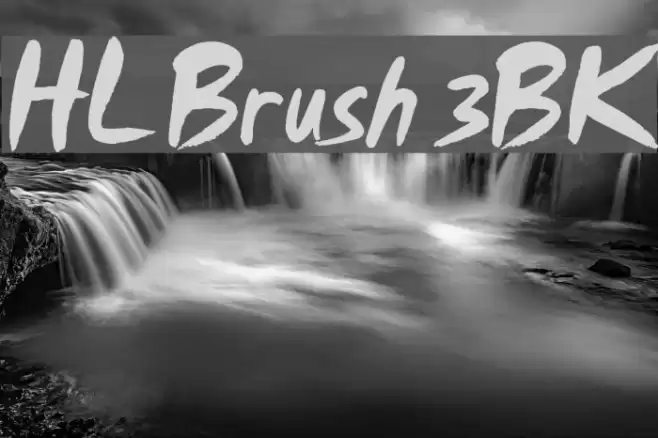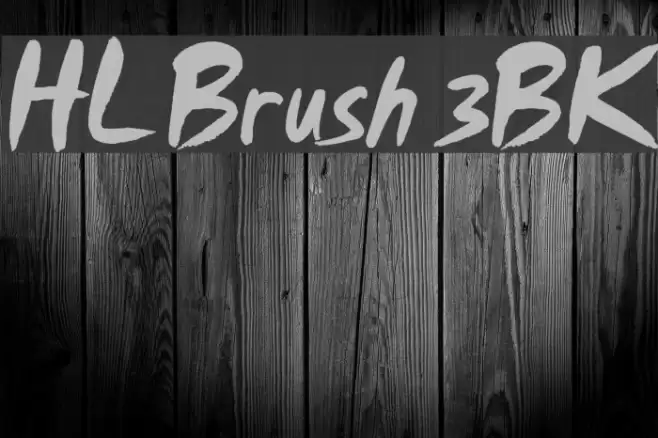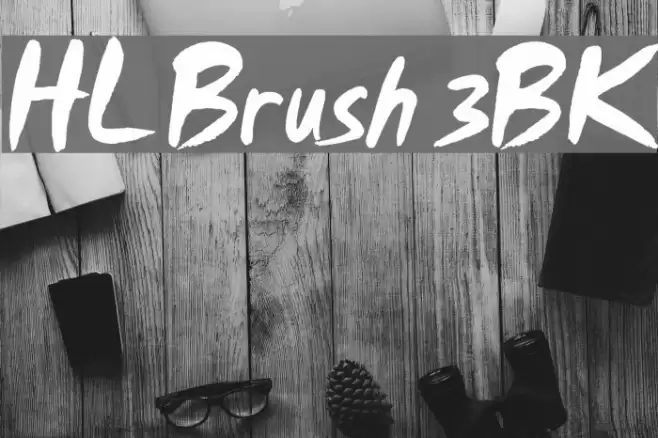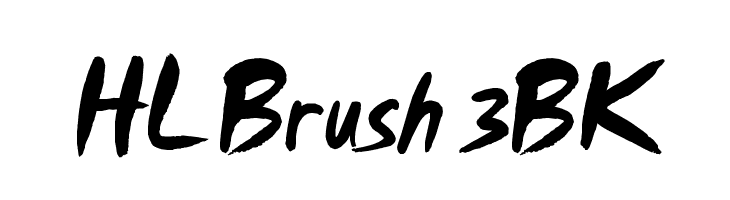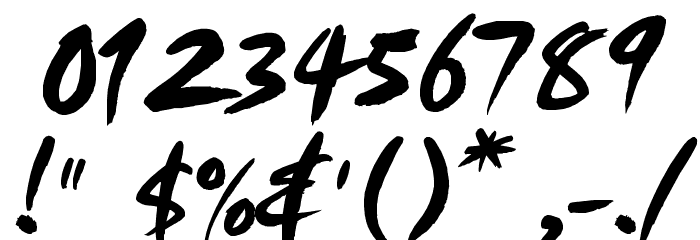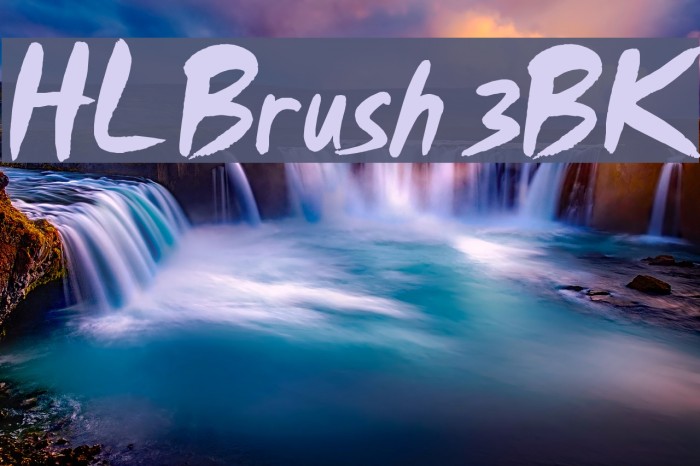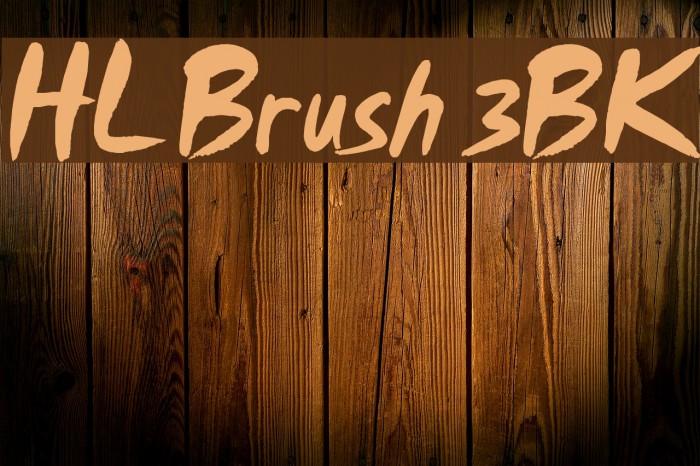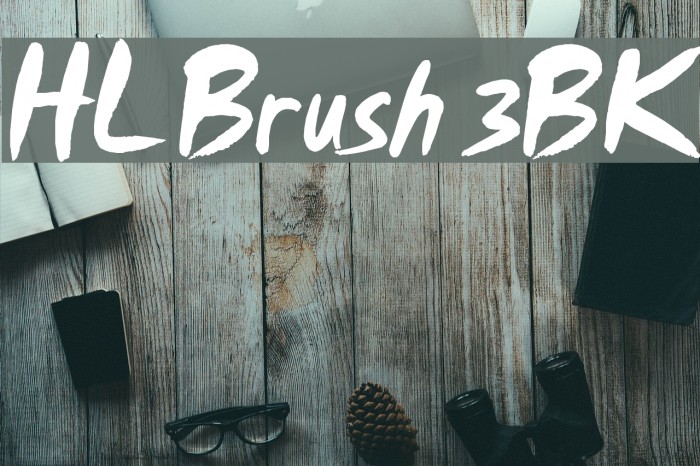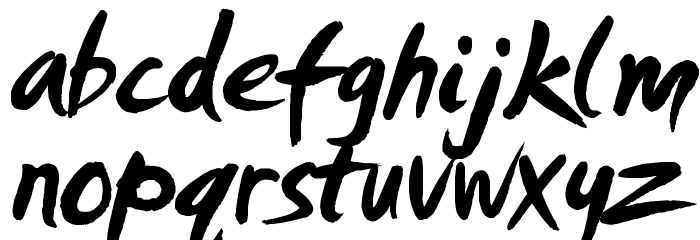
HL Brush 3BK Font
HL Brush 3BK Description
This font exhibits a dynamic and energetic brush style, characterized by bold, sweeping strokes that convey a sense of movement and fluidity. The uppercase and lowercase letters maintain a consistent style, with slightly irregular edges that enhance the hand-drawn appearance. The numerals and special characters are crafted with the same vigor, ensuring a cohesive look across all glyphs. The font's overall aesthetic is both artistic and informal, making it suitable for projects that require a personal touch. Its bold presence ensures readability while adding a creative flair.
A bold, brush-style font with dynamic, hand-drawn strokes from Uncategorized fonts.
- Proposed Projects: Ideal for branding, posters, social media graphics, and any project seeking a lively, artistic touch.